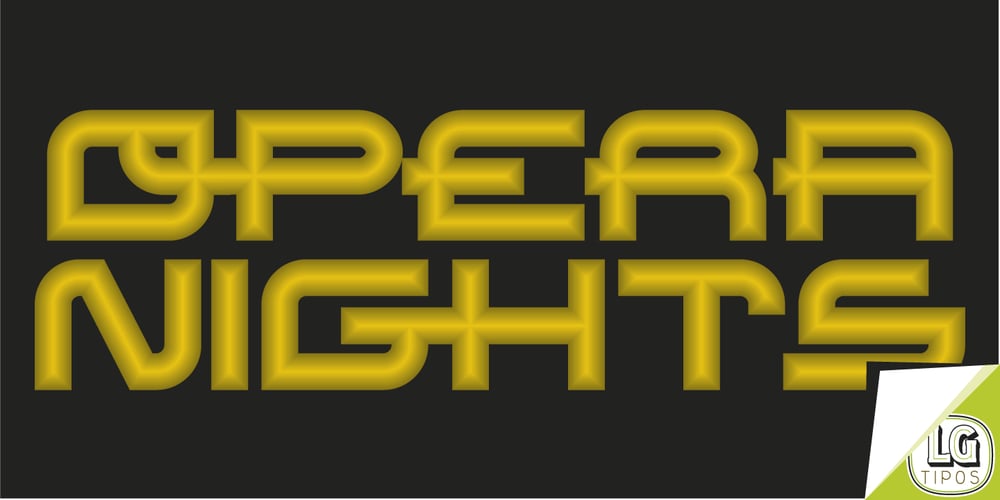
Gauntlet LGt
Gauntlet LGt Font Family was designed by Manuel Lage and published by LGF Fonts. Gauntlet LGt contains 1 styles and family package options. Gauntlet LGt is a geometric type, with a horizontal union of some of glyphs in the middle of the glyph, no lowercase, ideal for large holders, posters and banners.